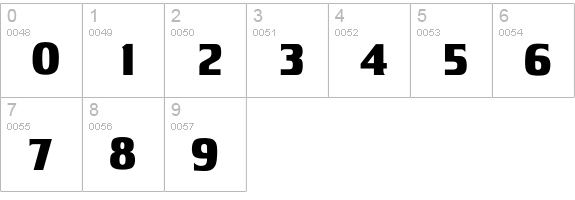
Konvoi Font Details
Introducing Konvoi font, a modern and stylish typeface that exudes elegance and sophistication. With its sleek lines and unique details, Konvoi is perfect for a wide range of design projects, from branding and packaging to social media graphics and website design. This versatile font offers a perfect balance of readability and personality, making it ideal for both headlines and body text. Its clean and contemporary aesthetic will instantly elevate any project and leave a lasting impression on your audience. What's even better is that Konvoi font is completely free to download at FontsMarket.com. So, whether you're a designer looking to add a touch of class to your work or a business owner wanting to create a professional image, Konvoi font has got you covered. Download it today and unleash your creativity with this exceptional typeface.